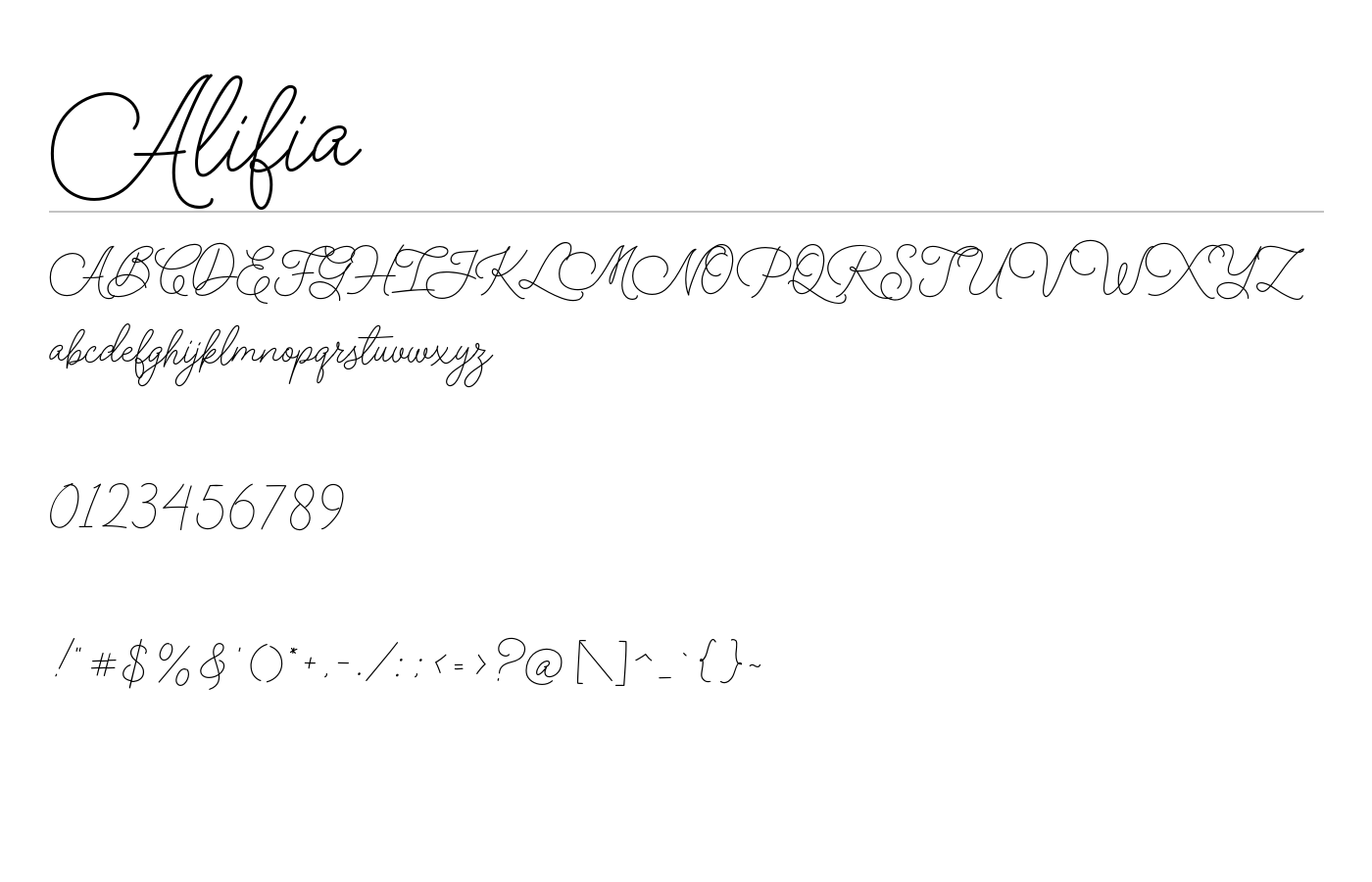
Alifia is an elegant, delicate script font with a flowing, handwritten style that features fine, airy strokes and graceful letterforms. Its light weight and slender lines give it a sophisticated and romantic feel, making it ideal for invitations, branding, and decorative headlines where a touch of refinement and personality is desired. This font works best in designs that need a stylish and graceful appearance without overwhelming the layout.
Alifia Font
About Alifia Font
| Font family | Alifia Font |
| Designer | Hendra Pratama |